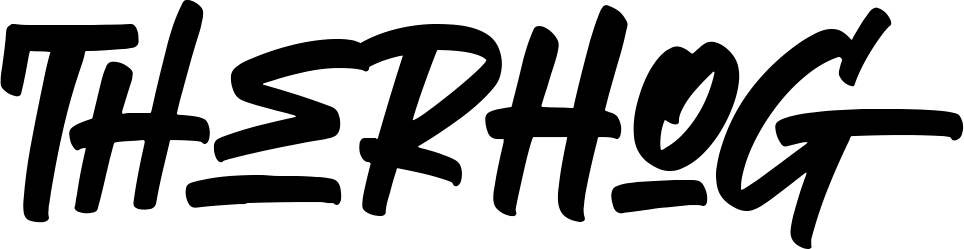
Therhog Font
By using the uppercase and number letters of a unique script font like Therhog, you can add an artistic and dramatic touch to many logos designs, billboards, menus, and applications.
Although this script font that is designed in brush style doesn’t have good readability, it can convey a sense of innovation, futuristic, dynamic, and vivacity to the audience, especially youngsters, and spark interest in their minds.